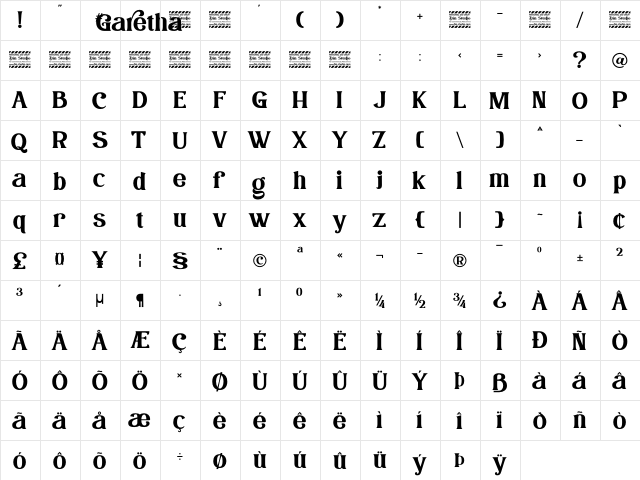
Garetha Personal Use Regular
Design Context for Garetha Personal Use Typeface
Garetha Personal Use is a composed and adaptable typeface that performs quietly and consistently across a wide range of design contexts.
Pro Tip: Use Garetha Personal Use in both headline and body roles to test its range before committing to a single application.